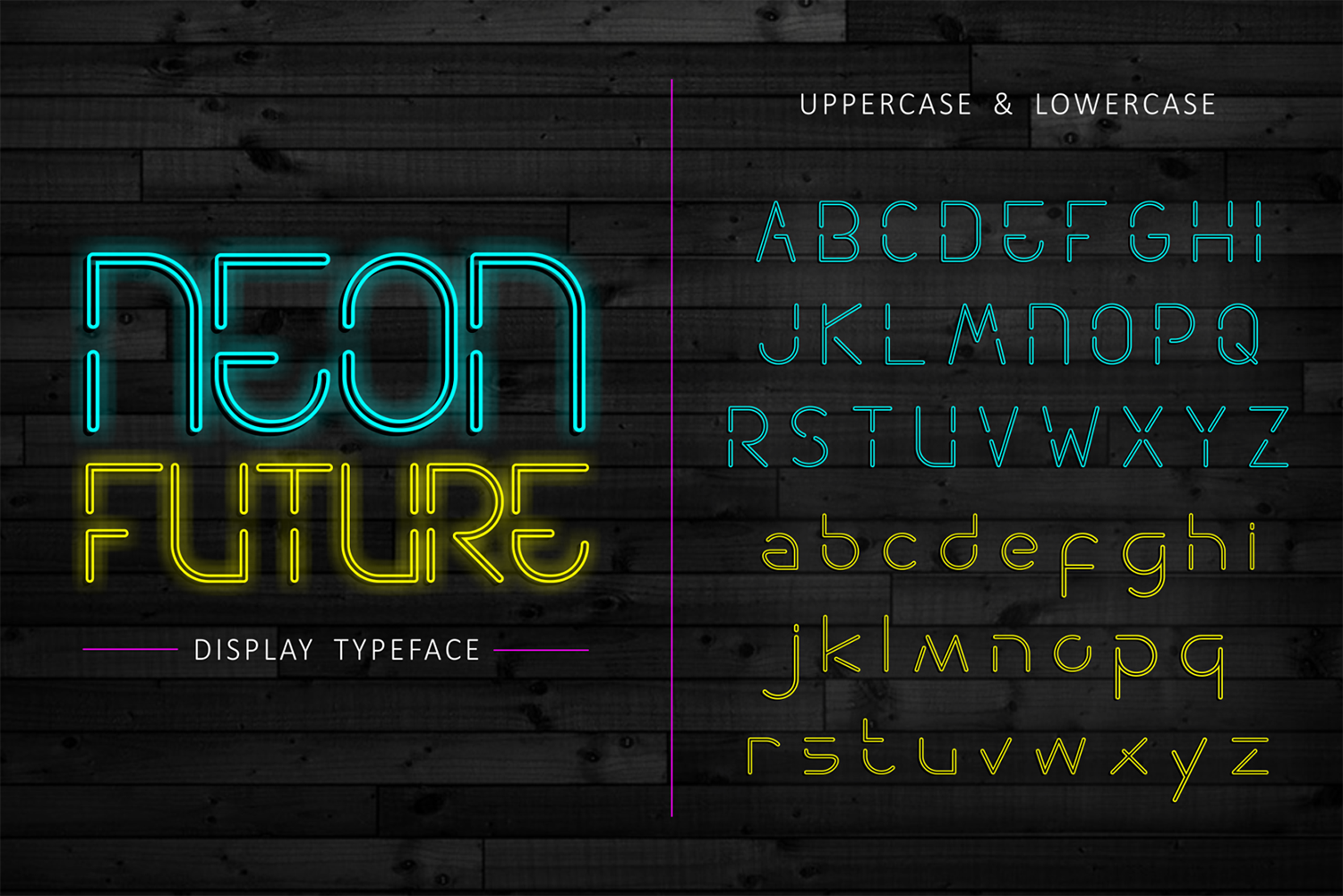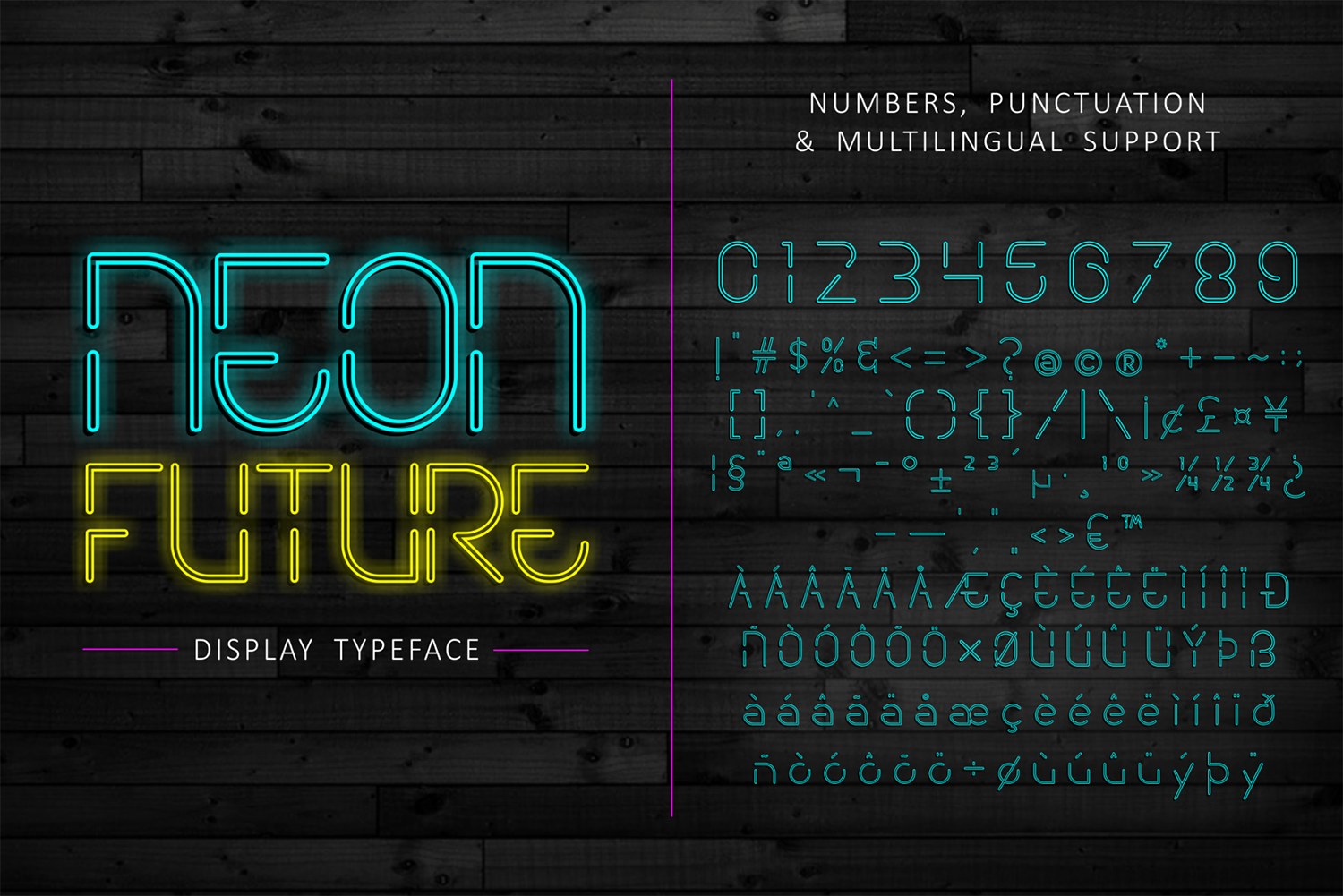
Neon Future Free Font
Neon Future Free Font s a retro-futuristic display font with a timeless style. A new modern & fresh display font with a neon light style with a futuristic touch makes this font look elegant, stylish, and perfect for any awesome project that needs a futuristic display taste. Get inspired by its elegant and urban look. This free typeface was designed by a talented Arukidz Fl. If you like it don’t forget to check out the full version.